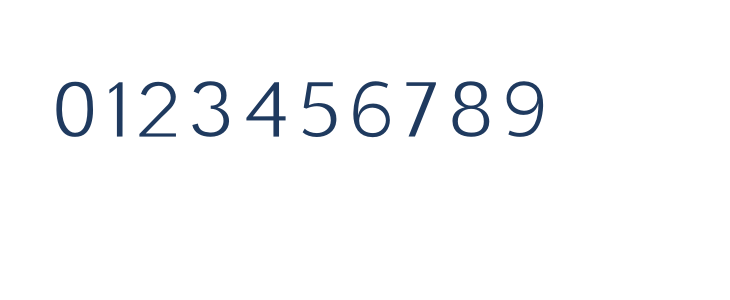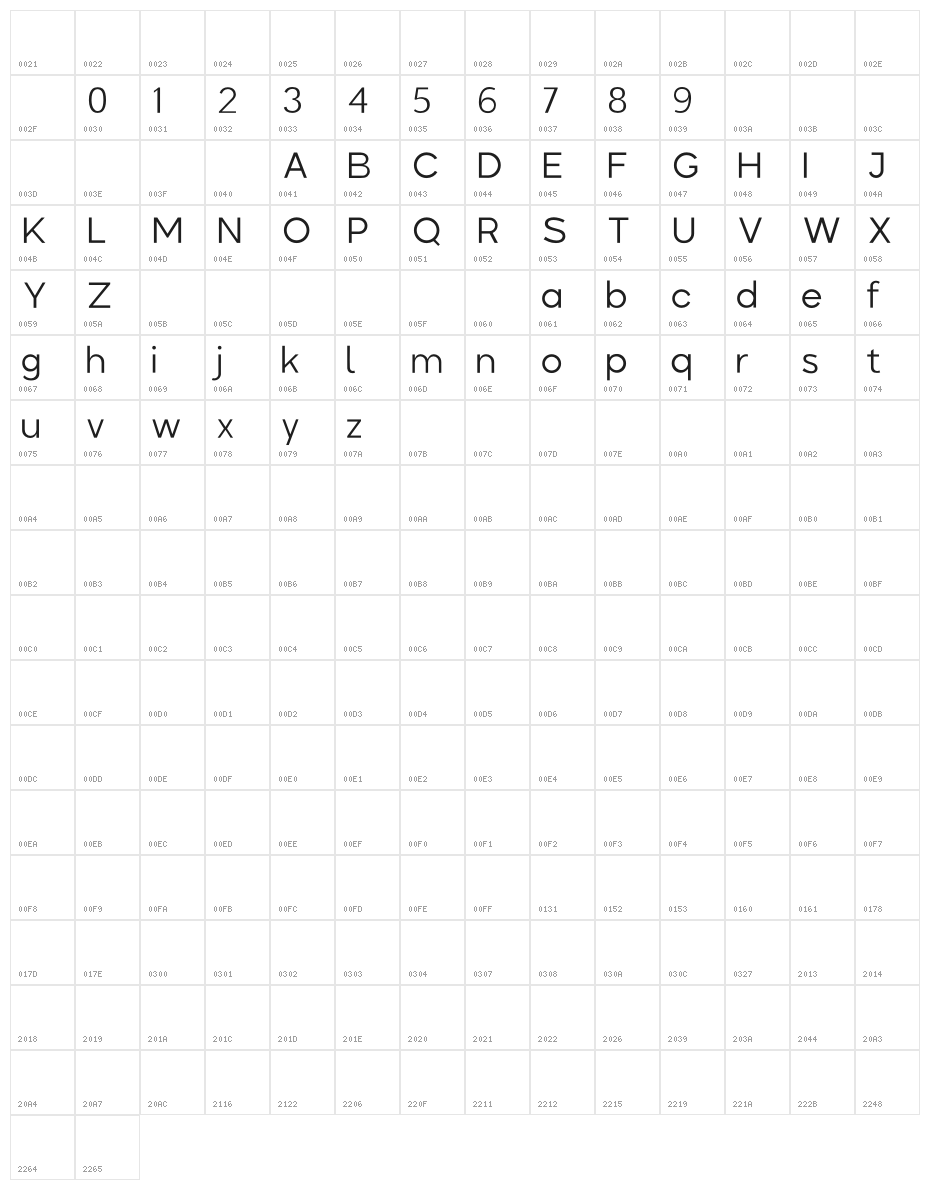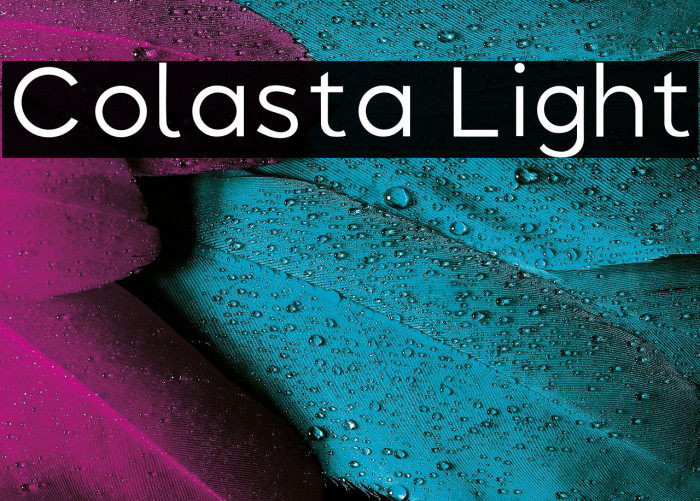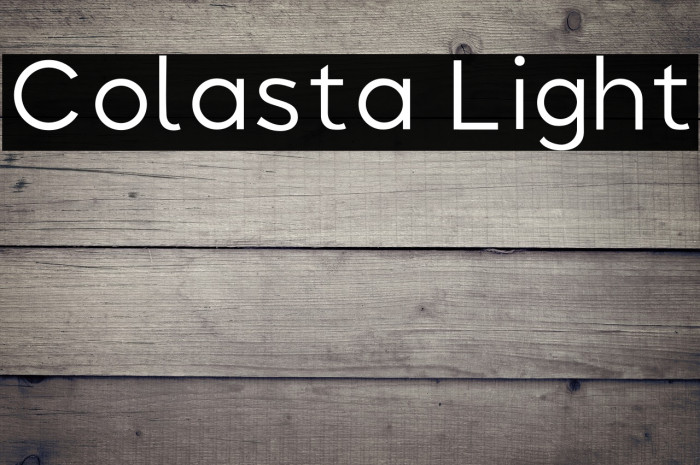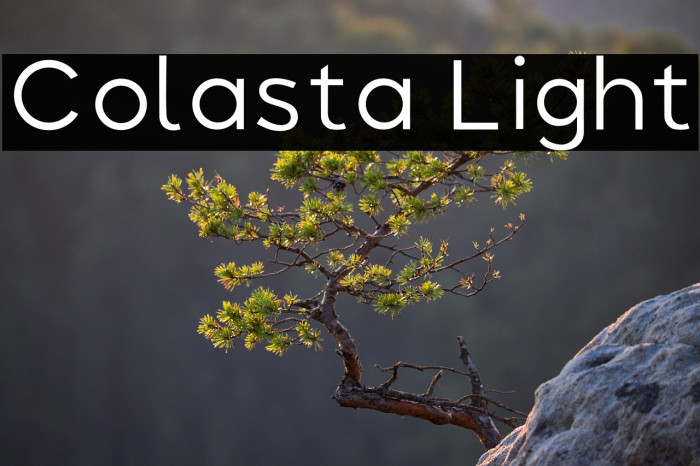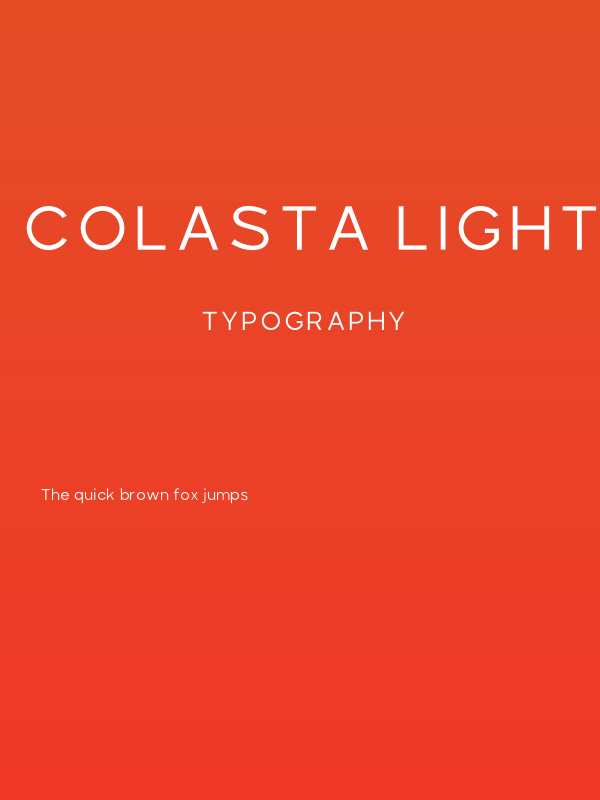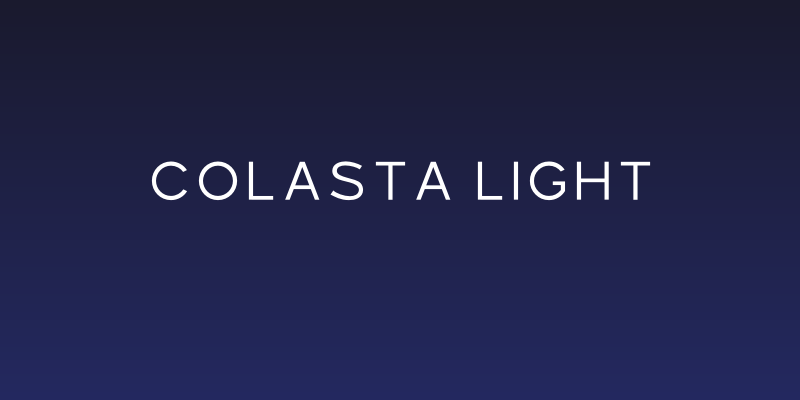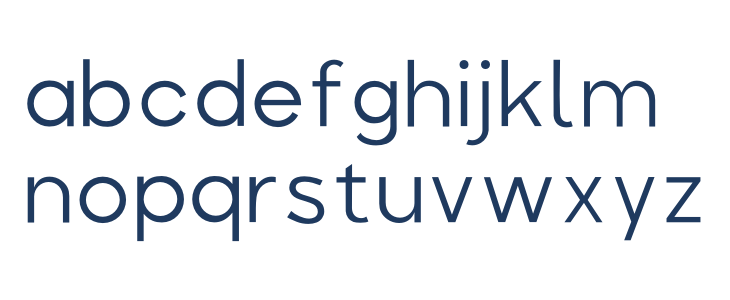
Colasta Light Font
Colasta Light Description
This font presents a clean and modern aesthetic with a minimalist design. Its sans-serif style is characterized by smooth curves and uniform stroke widths, providing a sleek and contemporary look. The letters are well-proportioned with a consistent height, making it highly legible. The numerals and special characters maintain the same design ethos, ensuring a cohesive appearance across all text elements. Its simplicity and elegance make it versatile for various design applications.
| Use Case | Headlines, Body text, Logos |
| Proposed Projects | Ideal for branding, web design, corporate materials, and minimalist graphic design projects. |